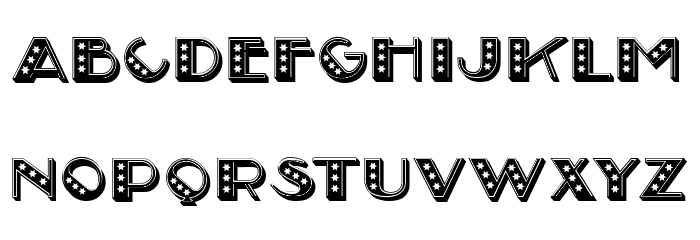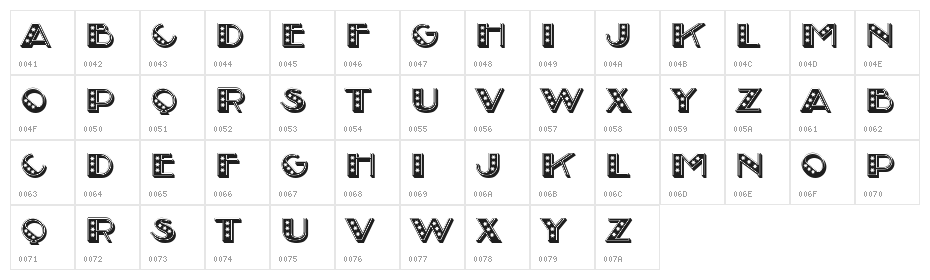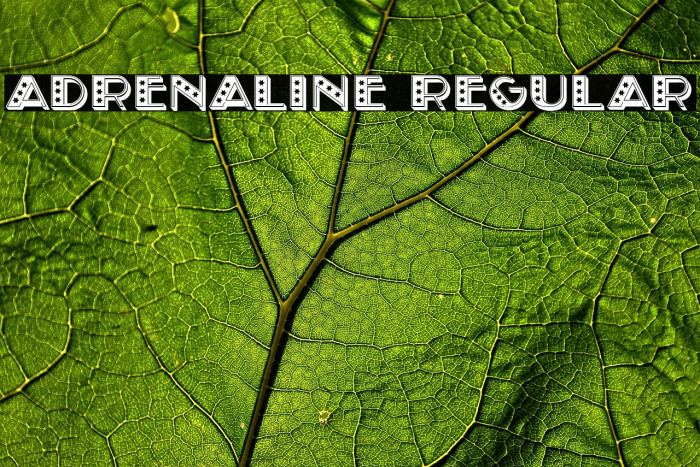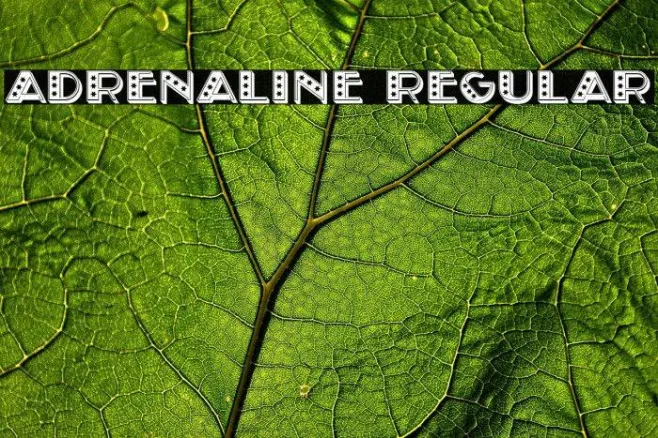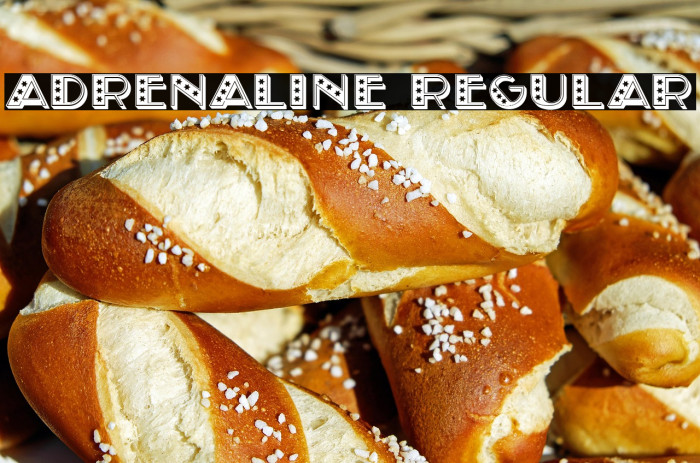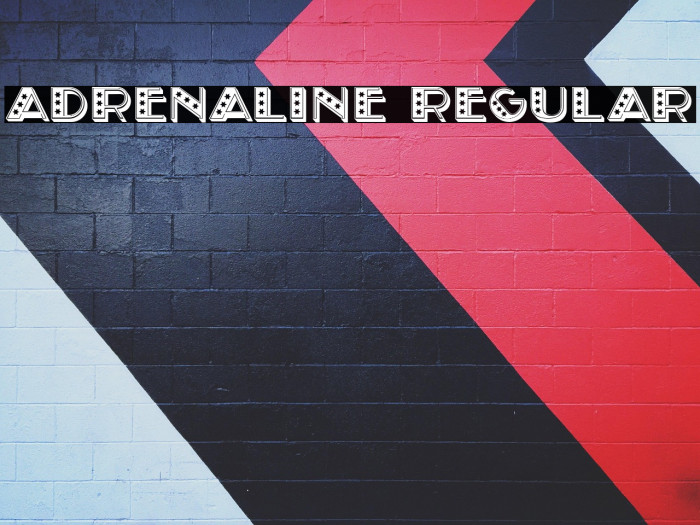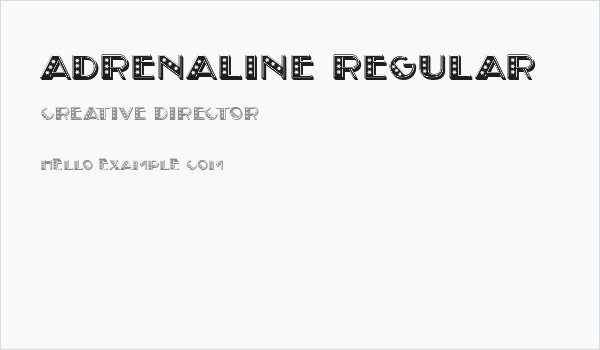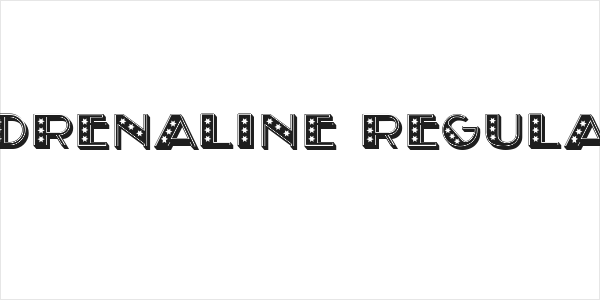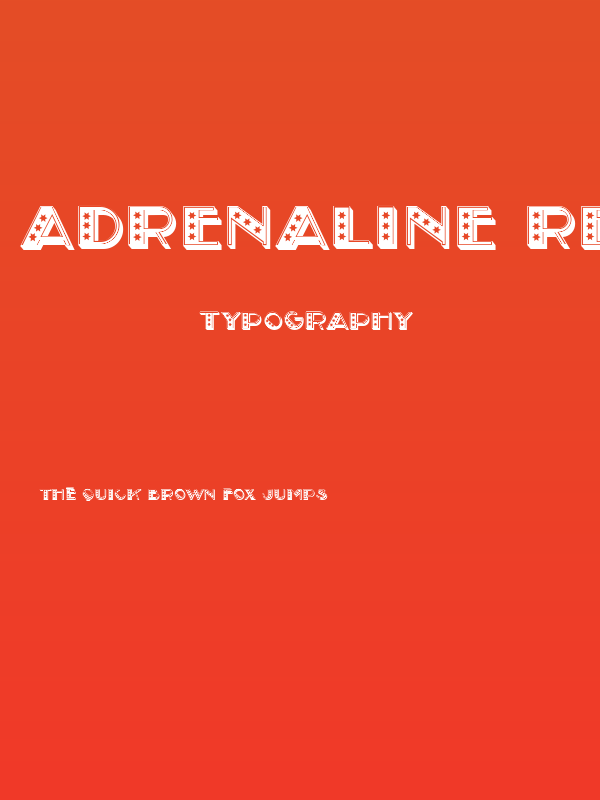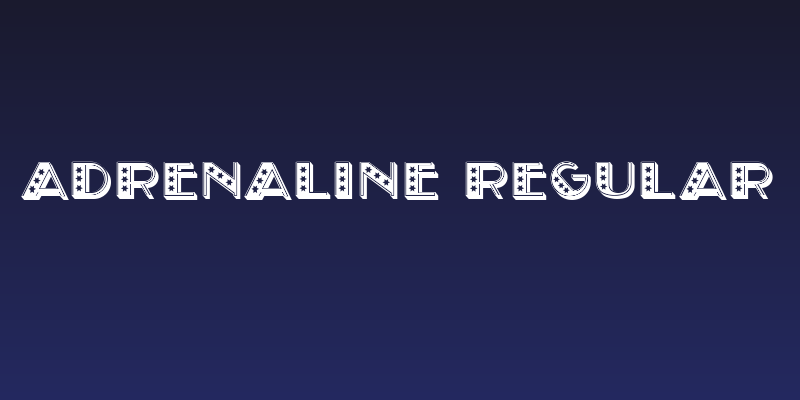
Adrenaline Regular Font
Adrenaline Regular Description
This font features a bold and decorative style with a unique star pattern embedded within each character. The letters are outlined with a thick border, enhancing their visibility and making them stand out. The design is reminiscent of vintage marquee lights, often seen in theater or circus settings, giving it a playful and eye-catching appearance. The uppercase letters are uniform in height and width, providing a consistent look across the alphabet. The star embellishments add a whimsical touch, making it suitable for creative and fun projects. The font's boldness ensures it captures attention, while the decorative elements add a layer of charm and nostalgia.